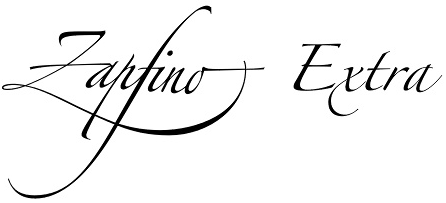
Fonts inspired by music often carry a certain rhythm, elegance, and creativity that make them perfect for musical posters, sheet music-inspired designs, lyrical branding, or artistic projects.
While they don’t literally look like musical notations, these fonts visually echo the flowing, ornamental, and dynamic characteristics of musical notes.
Below are ten of the best fonts that capture that melodic essence, whether through handwritten strokes, calligraphic flair, or whimsical curves.
1. Blacker Spirit
Blacker Spirit is a stylish and expressive serif font that features high contrast between thick and thin strokes, reminiscent of classical musical scores.
The elegant flourishes in its characters give off the same ornate vibe as musical notation, especially in its italic forms.
It’s a great pick for album covers, musical event posters, or branding with a vintage orchestral aesthetic. Blacker Spirit feels sophisticated and slightly dramatic, making it ideal for invoking a classical or operatic tone.
Its decorative ligatures and alternates add rhythm to any line of text, much like a flowing melody.
While it’s not a direct mimic of music notes, its stylistic choices echo the shapes and motion you’d associate with sheet music. Use it when you want your typography to sing, literally and visually.
2. Meytha
Meytha is a modern calligraphy font with an elegant script style that closely mimics the fluidity of handwritten sheet music.
Its swashes and natural strokes resemble the curves of treble clefs and quarter notes, giving it a subtly musical aesthetic.
This font feels personal, emotional, and creative—perfect for lyric sheets, music blogs, or invitations to classical concerts.
It also includes stylistic alternates and ligatures that allow you to compose more expressive word arrangements, almost like writing a melody on the page.
Meytha’s handcrafted look lends itself beautifully to projects that want to strike a balance between romantic and artistic tones.
It’s especially well-suited for use in musical branding for pianists, violinists, or vocalists. In short, it’s a visually lyrical font that almost dances on its own.
3. Forgotten Melody
With a name like Forgotten Melody, this font was practically made for musical design. It’s a dramatic serif display typeface with gothic influences and flowing lines that emulate the haunting beauty of classical compositions.
The serifs are sharp yet artistic, and its unique letterforms feel like the forgotten notes of an ancient sonata.
Forgotten Melody is excellent for album art, performance programs, or creative branding for composers and music historians.
It carries a strong emotional weight—ideal for storytelling through design. There’s a beautiful sense of tension in its characters, similar to the dynamic contrasts in orchestral music.
If you’re aiming to add a sense of vintage nostalgia with a dramatic flair, this font hits all the right notes.
4. Spiderwild
Spiderwild is a bold, edgy script font that seems to vibrate with energy, almost like the pounding of drums or a high-tempo jazz solo. Its sharp edges and exaggerated strokes create a sense of rhythm and urgency.
Although it leans toward a rebellious or rock-themed aesthetic, it retains a musical personality that feels organic and freeform. Spiderwild works well for band logos, grunge posters, or any project that needs visual impact with a musical undertone.
The wild movement in its strokes mimics the spontaneity of improvisational music. It’s definitely a more modern and daring choice for designers looking to break traditional harmony and create visual noise, in the best way.
Whether you’re designing for a punk band or a high-energy dance playlist, Spiderwild amplifies the vibe.
5. Halloween Notes
Halloween Notes is a novelty font that directly incorporates music symbols like notes and clefs into its letterforms, making it one of the most literal interpretations of a “music note” font.
It’s playful and whimsical, blending spooky Halloween aesthetics with actual musical elements.
While the font is primarily themed for seasonal use, it can also be great for children’s music programs, quirky music event flyers, or any creative project that wants to combine humor with musical motifs.
The inclusion of actual note shapes makes it visually engaging and thematic.
Halloween Notes may not be suitable for formal work, but it offers a fun and highly visual way to integrate music into your design. Think of it as the typographic equivalent of a musical trick-or-treat.
6. Softly Handwritten
Softly Handwritten is a calm, casual script font that captures the spirit of someone jotting down lyrics or notating music by hand.
The strokes are smooth, consistent, and flow like a mellow tune. This font is great for singer-songwriters, indie album art, or sheet music-inspired stationery.
Conclusion
Fonts that resemble music notes don’t always need to include literal note symbols, they can evoke the essence of music through rhythm, flow, and emotion.
Whether you’re designing for classical performances, indie album art, or quirky musical events, the fonts above offer diverse styles that feel melodic in their own way.
Choosing the right one allows your text to not just communicate, but to perform. Let your typography hit the right notes.